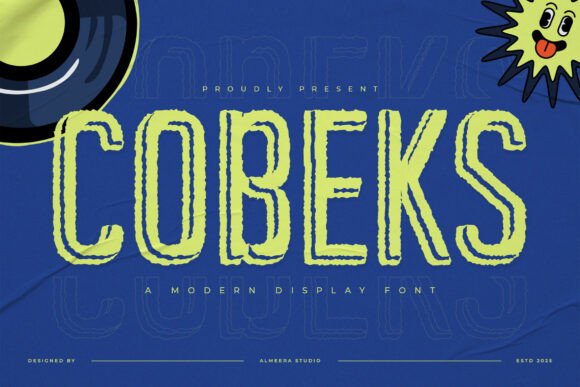
Cobeks Font: Unleash Your Creativity with this Quirky and Experimental Display Font
In the world of typography, fonts play a crucial role in conveying messages, expressing emotions, and creating a lasting impression. For creatives looking to break the mold and make a statement, Cobeks font is the perfect choice. This quirky and experimental modern display font is designed to deliver an electric and rebellious feel, making it ideal for poster designs, youth-oriented branding, music covers, and merchandise that stands out with a punch of personality.
Unique Ripple-Like Texture
Cobeks font boasts a unique ripple-like texture that sets it apart from other display fonts. This distinctive feature gives your designs a dynamic and energetic feel, perfect for capturing the attention of your audience. Whether you’re creating a poster, brochure, or social media graphic, Cobeks font is sure to make your design stand out.
Designed for Creatives
Cobeks font is specifically designed for creatives who want to push the boundaries of typography and design. Its quirky and experimental nature makes it perfect for:
- Poster designs: Create eye-catching posters that grab attention with Cobeks font.
- Youth-oriented branding: Give your brand a fresh and youthful vibe with this modern display font.
- Music covers: Add a touch of personality to your music covers with Cobeks font.
- Merchandise: Create unique and eye-catching merchandise that stands out from the crowd.
Why Choose Cobeks Font?
Here are just a few benefits of using Cobeks font in your designs:
- Unique and eye-catching: Cobeks font is sure to grab attention with its quirky and experimental design.
- Versatile: Use Cobeks font for a variety of design projects, from posters to merchandise.
- Customizable: Experiment with different typography styles and create unique designs that reflect your brand’s identity.
Tips for Using Cobeks Font
Here are some tips for getting the most out of Cobeks font:
- Experiment with different sizes: Cobeks font looks great in large sizes, but it can also be used for smaller designs.
- Play with colors: Try out different color combinations to create unique and eye-catching designs.
- Mix and match: Combine Cobeks font with other fonts to create interesting and dynamic typography.
- Keep it simple: Don’t be afraid to keep your design simple and let Cobeks font take center stage.
In conclusion, Cobeks font is a quirky and experimental modern display font that’s perfect for creatives looking to break the mold. With its unique ripple-like texture and PUA encoding, Cobeks font is sure to deliver an electric and rebellious feel to your designs. Whether you’re creating posters, branding materials, music covers, or merchandise, Cobeks font is the perfect choice.